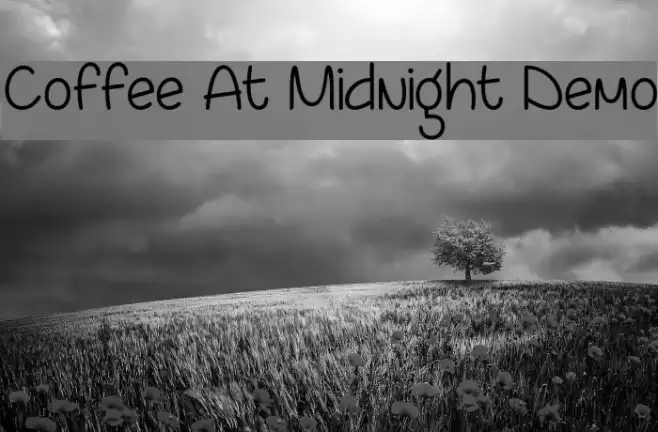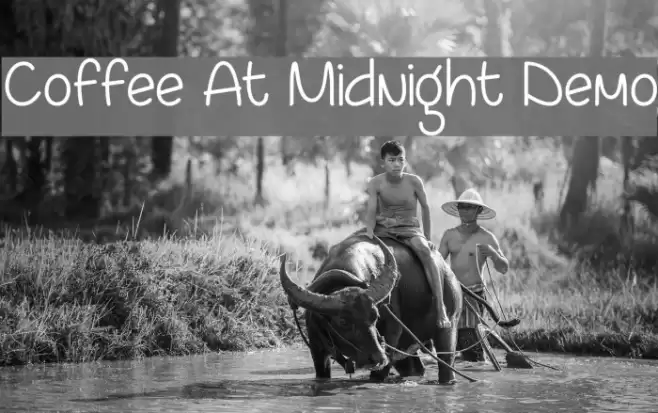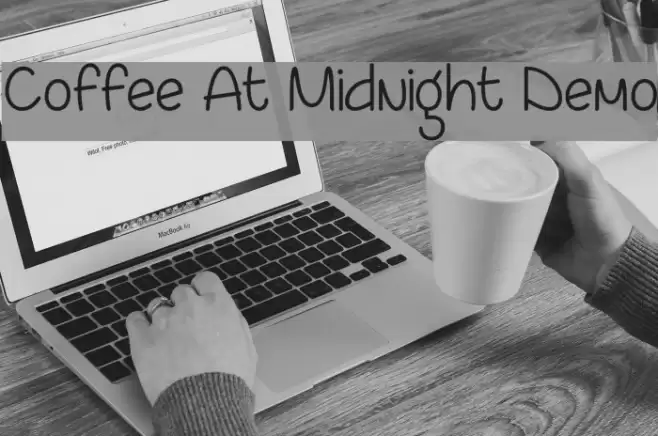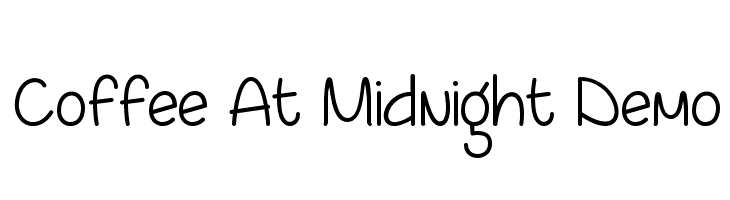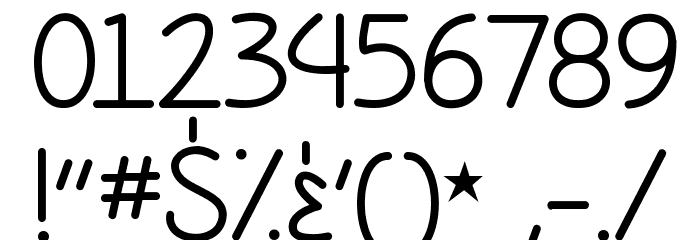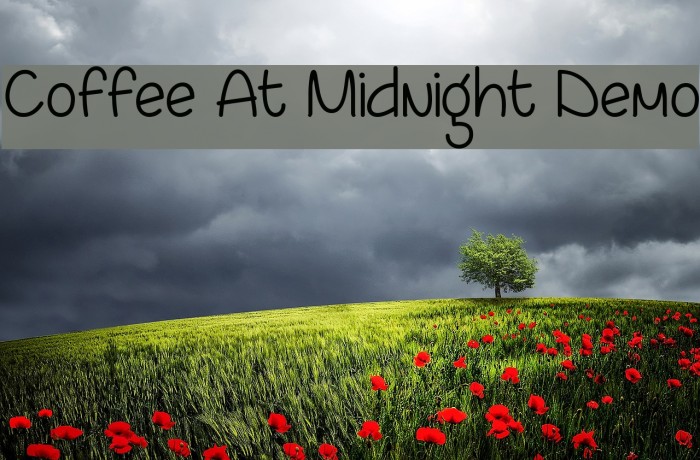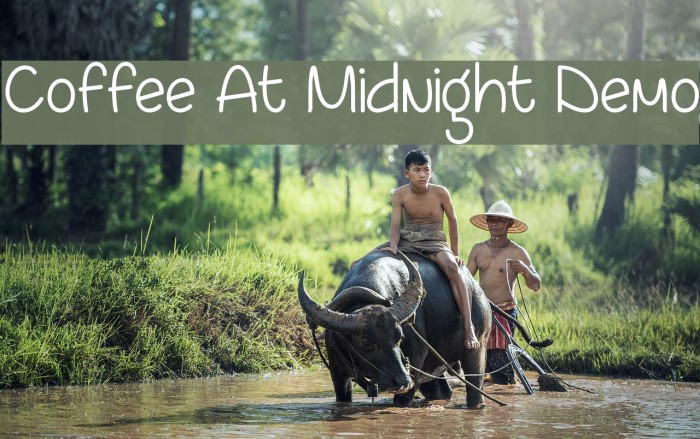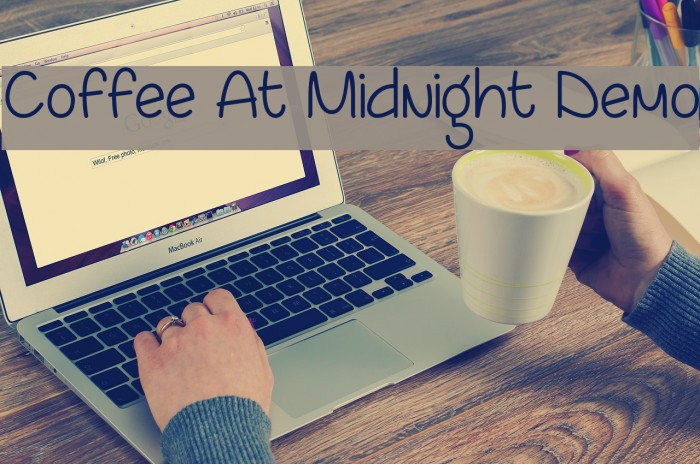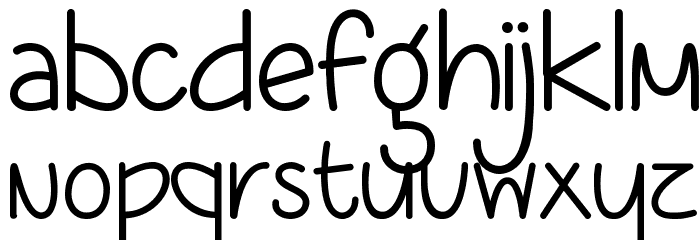
Coffee At Midnight Demo Font
Coffee At Midnight Demo Description
This playful and casual font features a handwritten style with a smooth, flowing appearance. The characters are rounded and slightly irregular, giving it a friendly and approachable feel. The uppercase and lowercase letters maintain a consistent style, with a slight tilt that adds to its informal charm. The numerals and special characters are designed to match the overall aesthetic, ensuring a cohesive look across all text. This font's simplicity and warmth make it suitable for a variety of creative projects.
A playful, handwritten font with a smooth, flowing style from Uncategorized fonts.
- Proposed Projects: Ideal for greeting cards, children's books, casual branding, and social media graphics.
- Overall Style: Casual, Playful
- Use Case: Logos, Headlines, Informal Text